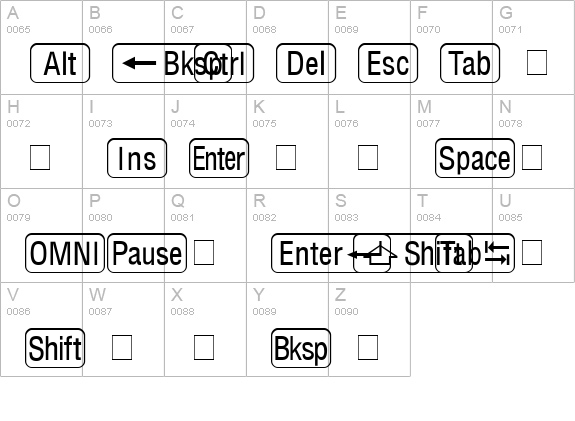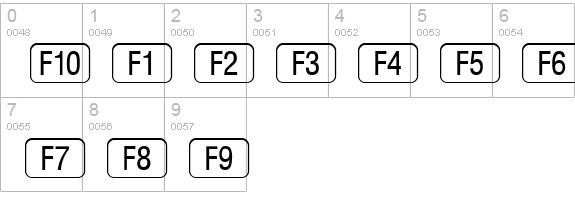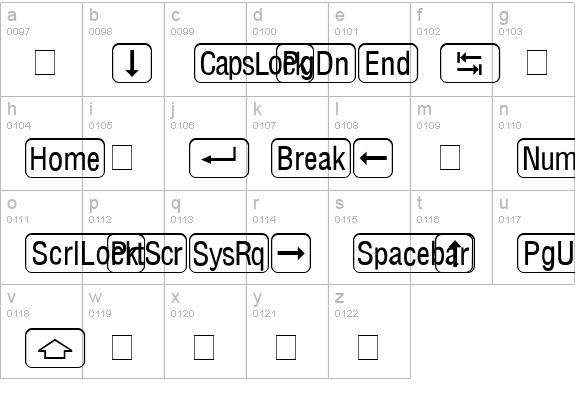
RRKeyCaps Normal Font Details
RRKeyCaps Normal is the standard, neutral variant in the RRKeyCaps typeface family \xE2\x80\x94 well suited to general body text, paragraphs, and standard typographic work.
RRKeyCaps Normal font is a versatile and modern typeface that offers a sleek and professional look to any design project. With its clean lines and rounded edges, this font is perfect for both headers and body text. The RRKeyCaps Normal font is free to download at FontsMarket.com, making it easily accessible for designers and creatives looking to enhance their work with a stylish and contemporary font option. Add a touch of sophistication to your projects with RRKeyCaps Normal font today!